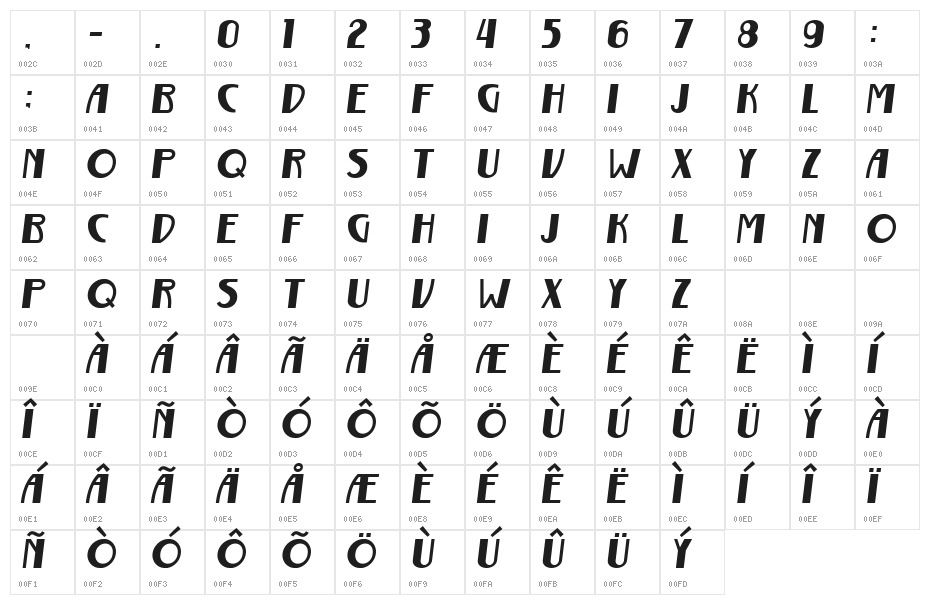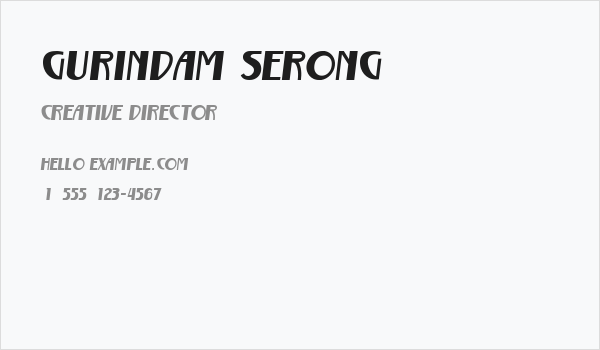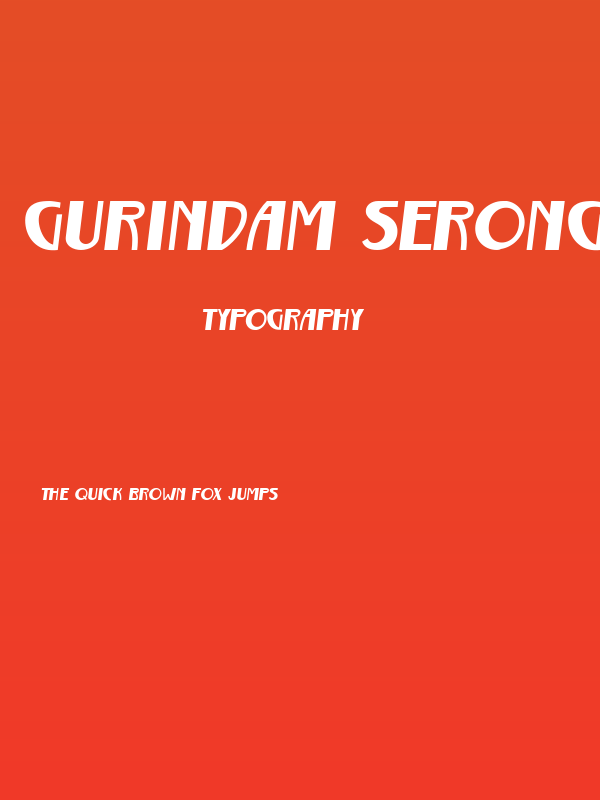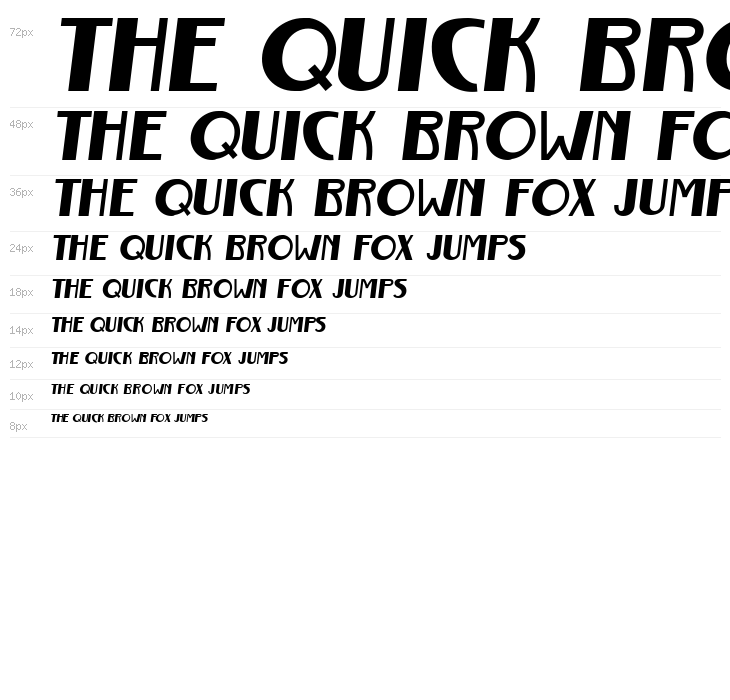
Gurindam Serong Font
Gurindam Serong Description
This font features a dynamic and modern design with a slight forward slant, giving it an energetic and progressive feel. The characters are bold and have a distinct geometric influence, with sharp angles and clean lines. The uppercase letters are particularly striking, with a uniform height that creates a cohesive look. The numerals are equally bold, maintaining the font's overall aesthetic. The special characters are well-integrated, ensuring consistency across all glyphs. This font is designed to make a statement, perfect for eye-catching headlines and impactful designs.
Proposed ProjectsIdeal for branding, advertising, posters, and any project requiring a strong visual impact.